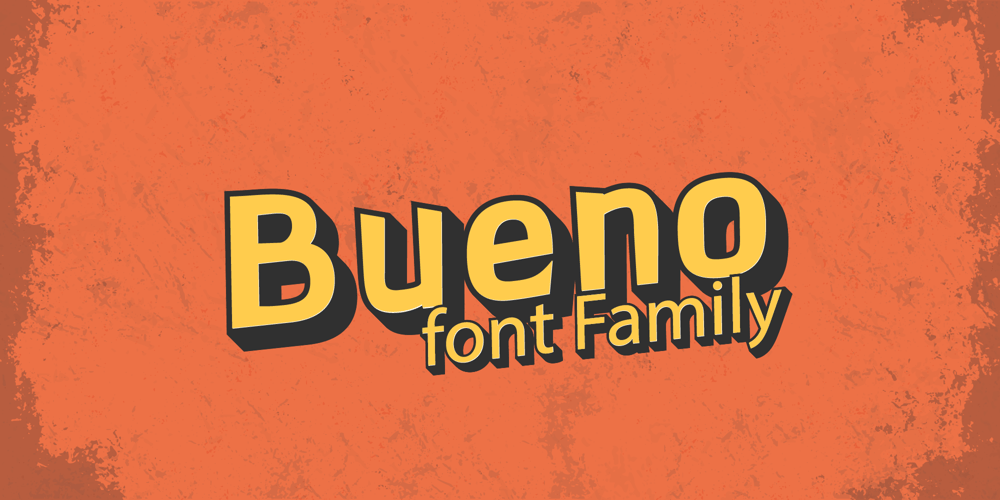
Bueno Font Family was designed by Folkmar Diarf and published by FolkCraft Studio. Bueno contains 7 styles and family package options. Elevate your design game with the Bueno Font Family, a stunning creation by the talented team at FolkCraft Studio. From extra light to extra bold, each style boasts a unique, detailed, and handmade look that sets it apart.Dive into the world of possibilities with Bueno Font. Experience its captivating allure in all caps with wide spacing for a classy aesthetic, or let it shine in a mix of capital and lowercase letters for a timeless appeal that transcends trends.Envision the Bueno Font Family as the centerpiece of your creative projects. Its versatility makes it perfect for gorgeous logos, captivating displays, elegant headers, enchanting invitations, memorable save-the-dates, and timeless wedding designs. Imagine the impact it can have on titles, web layouts, and comprehensive branding strategies.Don’t miss out on the opportunity to enhance your designs with the Bueno Font Family! Ideal for online uses and printing, this font collection is your ticket to creating sophisticated and stylish visuals that leave a lasting impression. Perfect for a wide range of applications, from logos to web layouts, this font family is a must-have for designers seeking to make a statement.